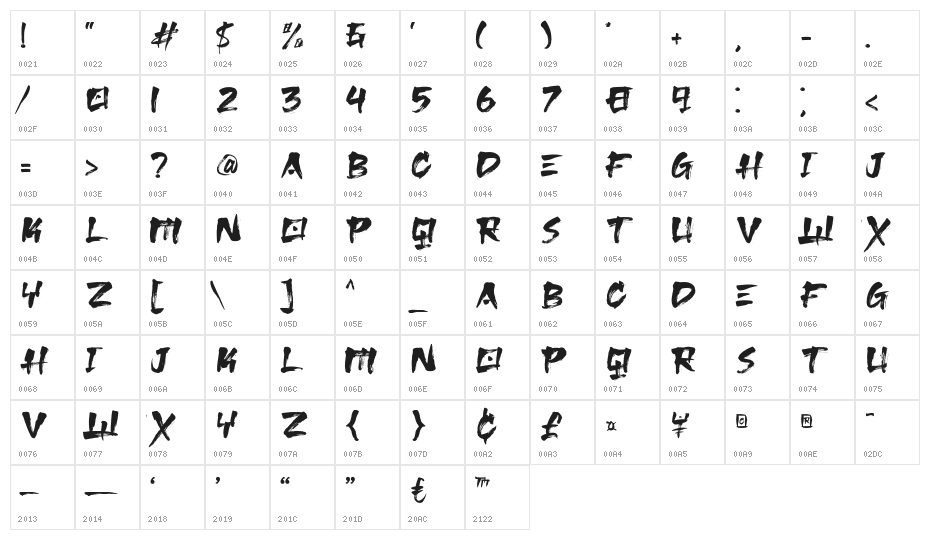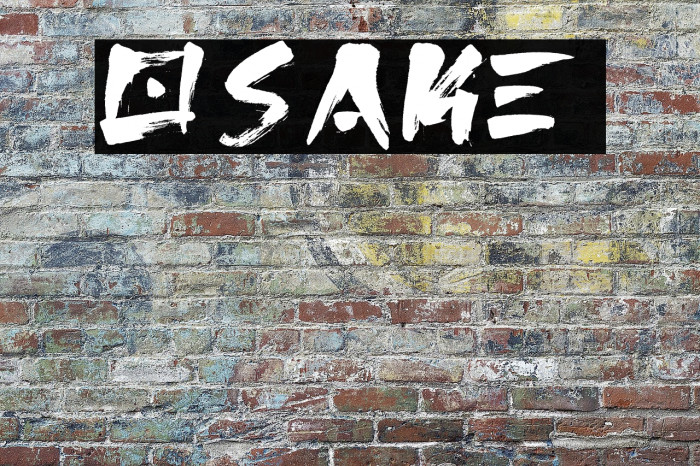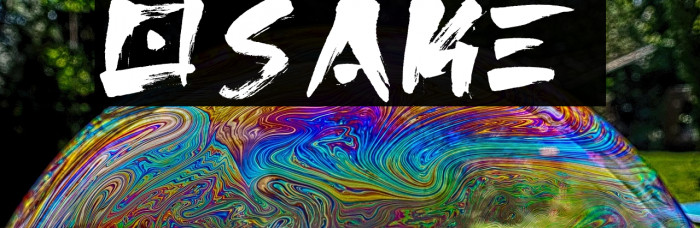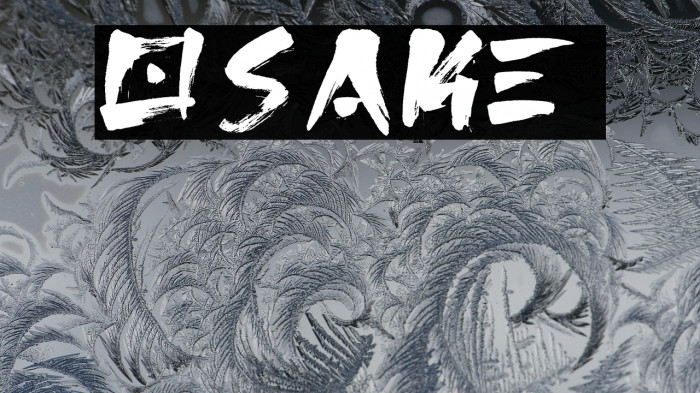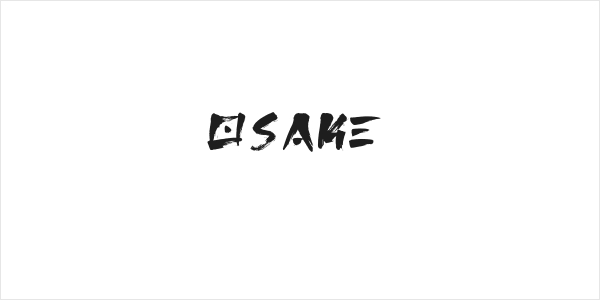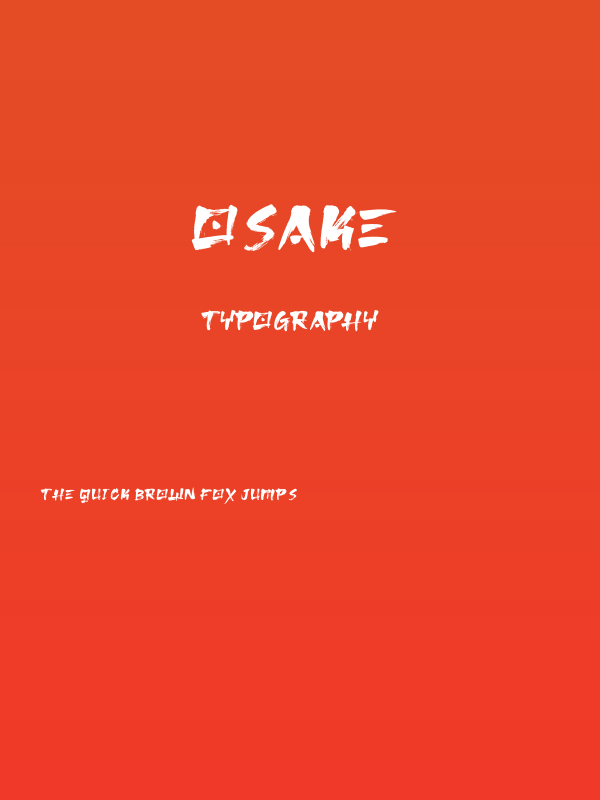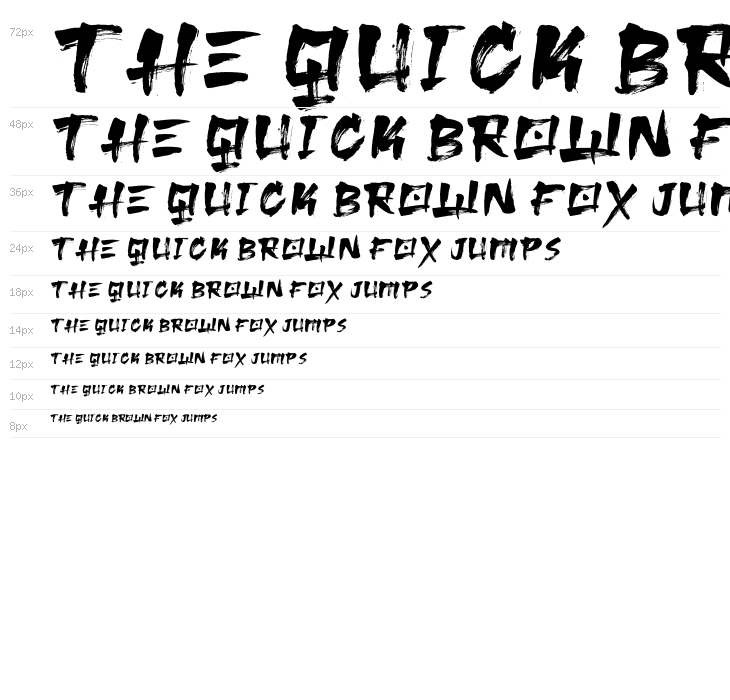
Osake Font
Osake Description
This font exudes a bold, expressive style reminiscent of brush strokes, giving it a dynamic and artistic flair. The characters are crafted with a rough, textured appearance, adding a sense of movement and energy. The uppercase and lowercase letters maintain a consistent style, with each character displaying unique variations that enhance its hand-drawn aesthetic. The numerals and special characters follow the same design principles, ensuring a cohesive look across all glyphs. This font is perfect for projects that require a strong visual impact, such as posters, album covers, or branding materials that aim to convey creativity and boldness.
| Overall Style | Artistic, Expressive |
| Proposed Projects | Ideal for posters, album covers, branding materials, and any creative projects requiring a strong visual impact. |